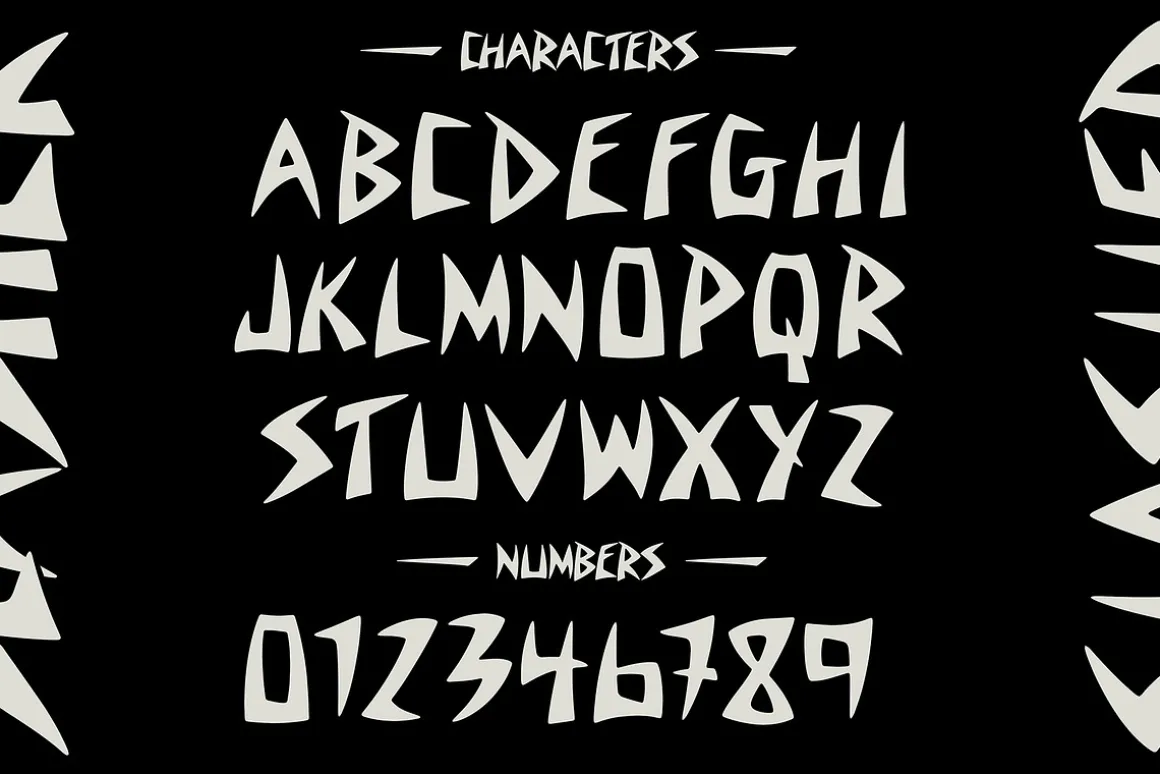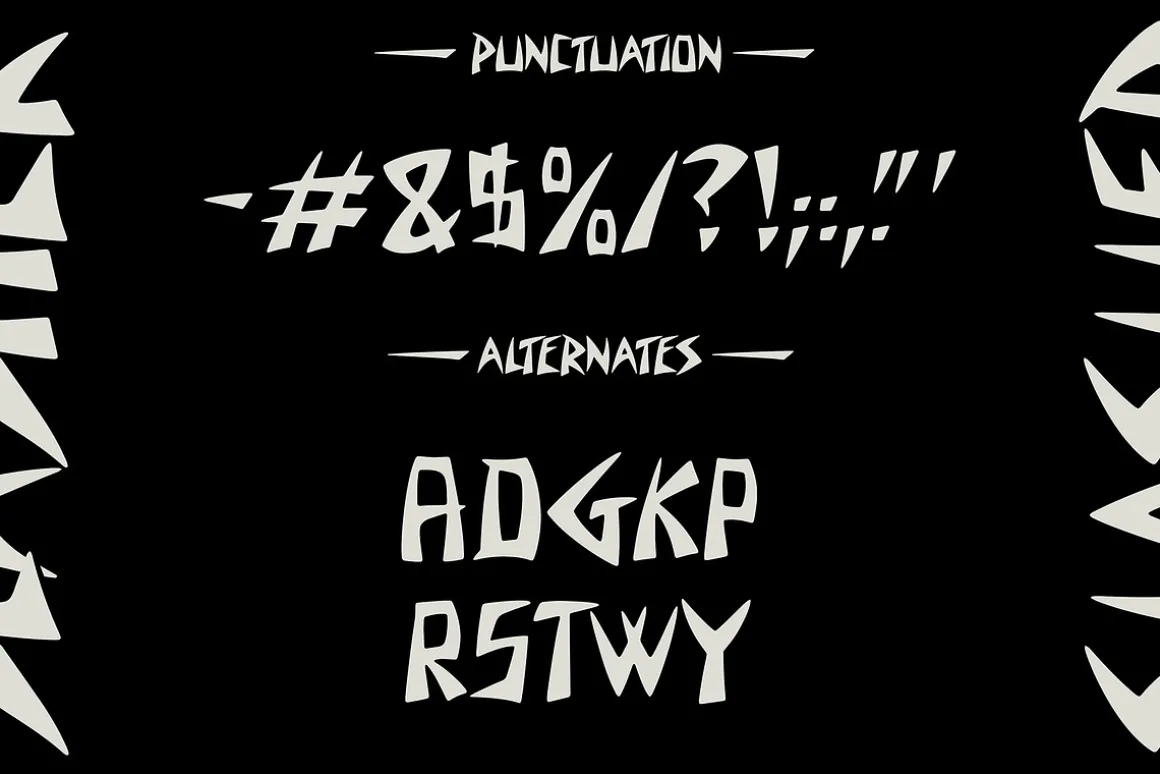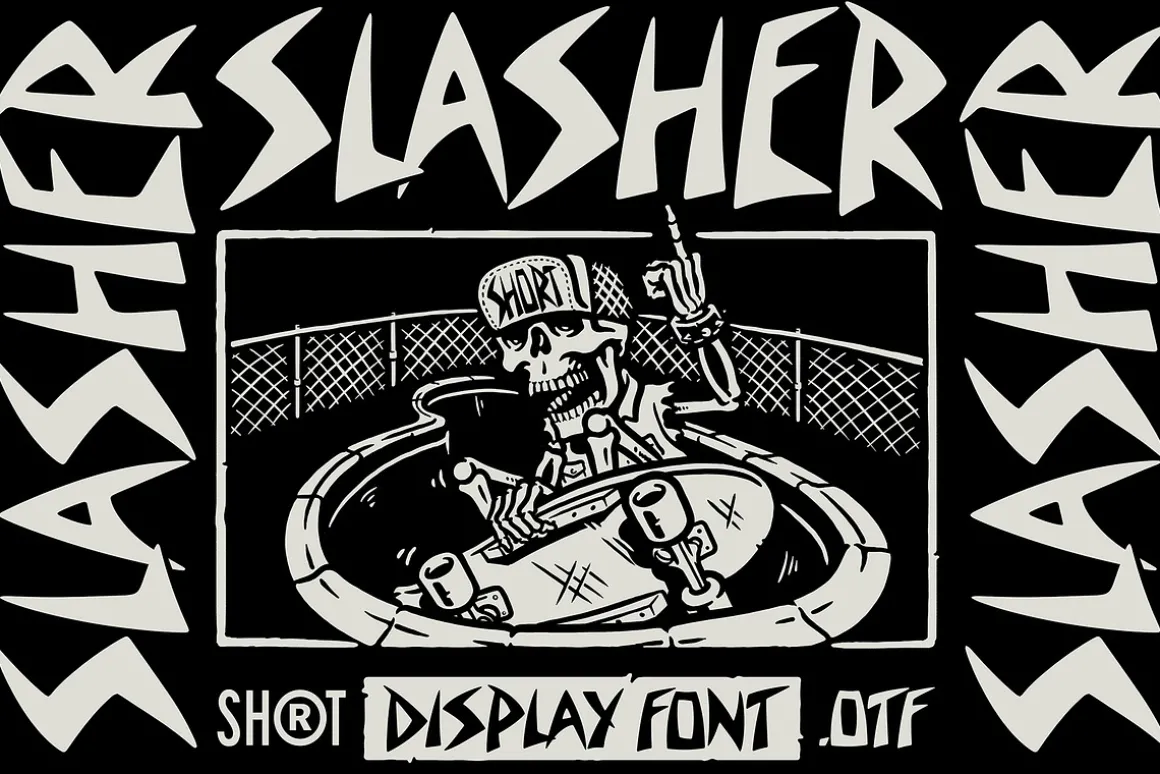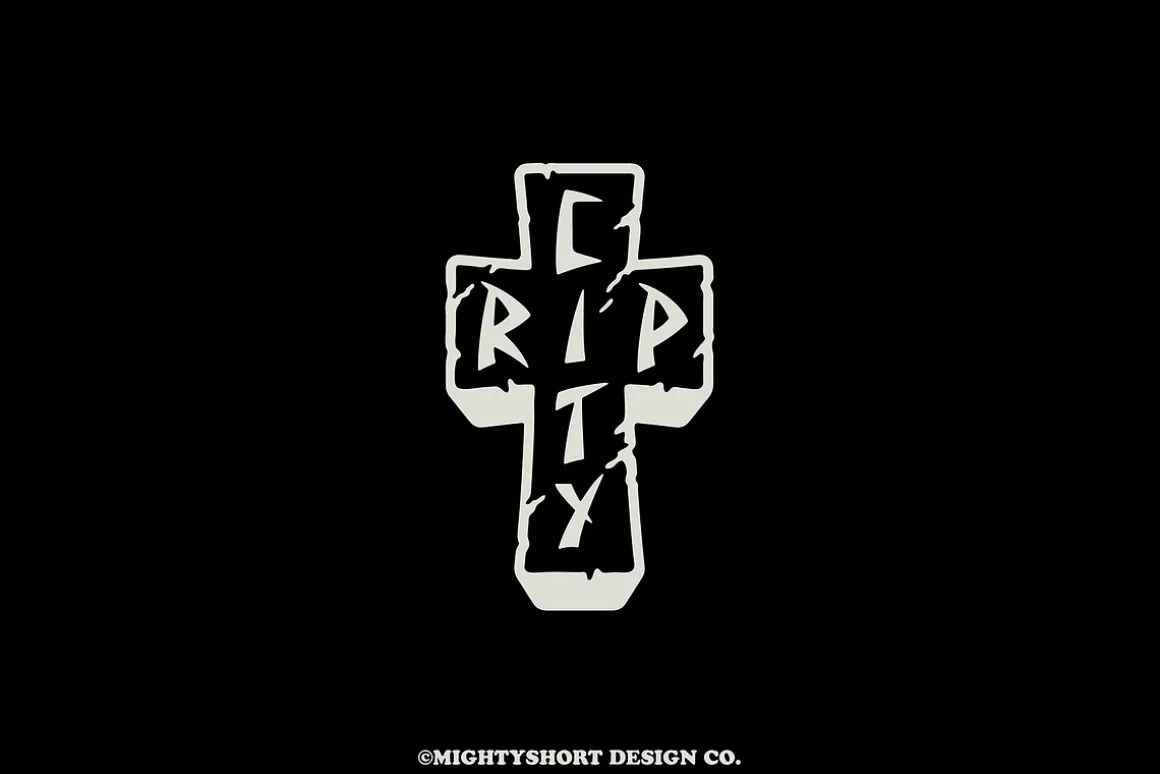
Slasher is a font inspired the punk and Skateboard culture of the 80’s. The font comes with Capital letters, Numbers, punctuation and Alternate Characters. Suitable for apparel, Poster, Logos and more. Keep on pushing!